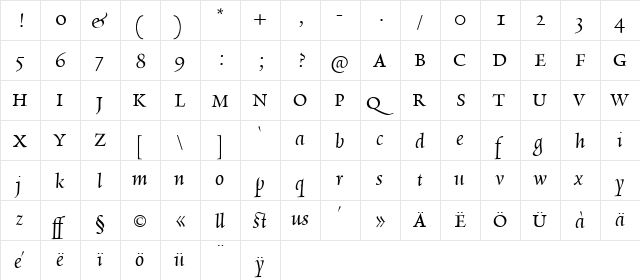
RialtoDF-PiccoloItalic Italic
Design Context for RialtoDF-PiccoloItalic Typeface
RialtoDF-PiccoloItalic is a composed and adaptable typeface that performs quietly and consistently across a wide range of design contexts. The slanted form adds forward momentum and visual energy.
Pro Tip: Try RialtoDF-PiccoloItalic for annotation and caption copy alongside an upright companion — the contrast in angle creates a dynamic but ordered typographic system.